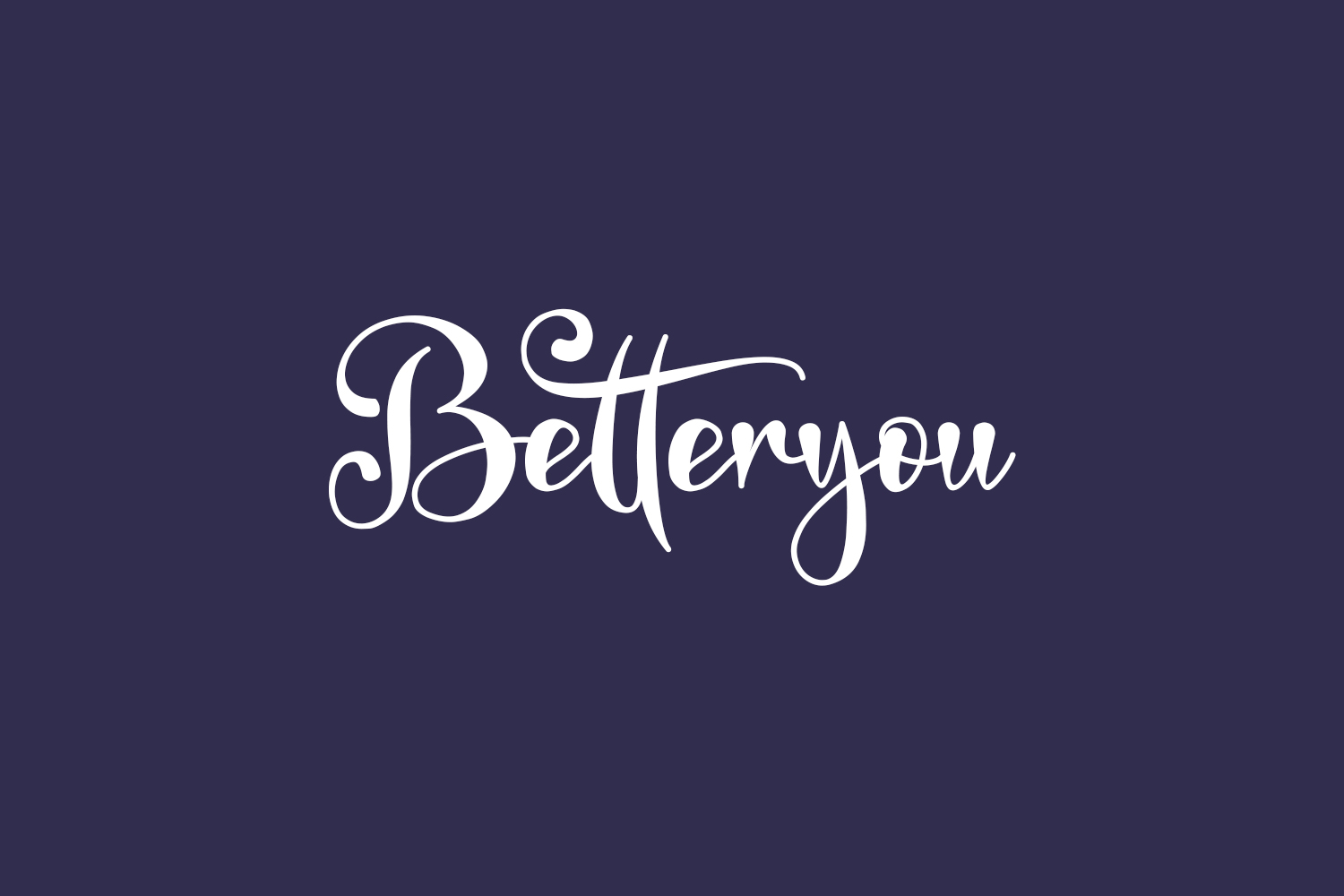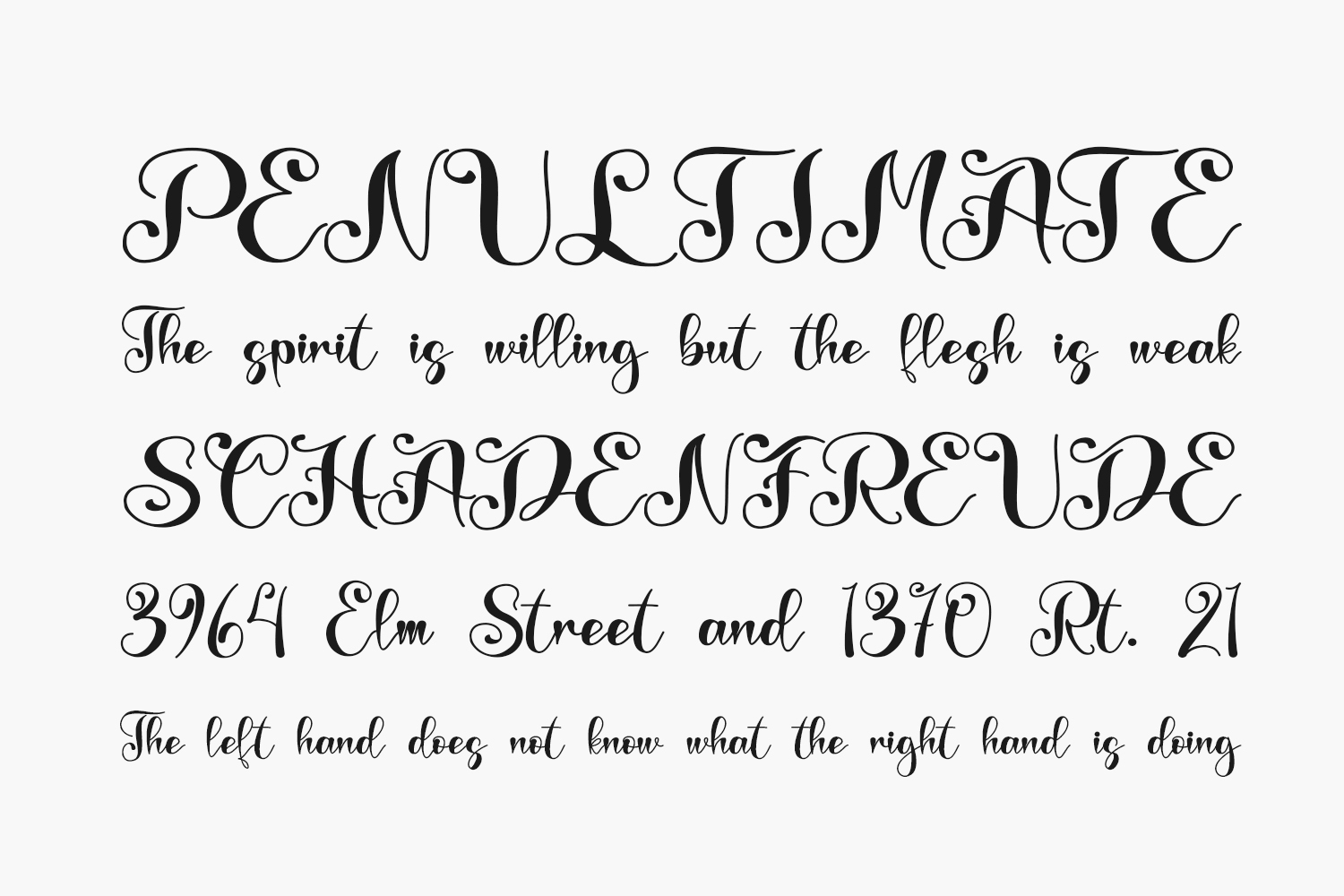
Betteryou Free Font is a beautiful light handwritten font with a unique feel and a stunning impact. It will add a luxury spark to any design project that you wish to create. Betteryou Free Font was designed by Letterafa Studio and is free for personal use only. Please purchase the full version for commercial use.